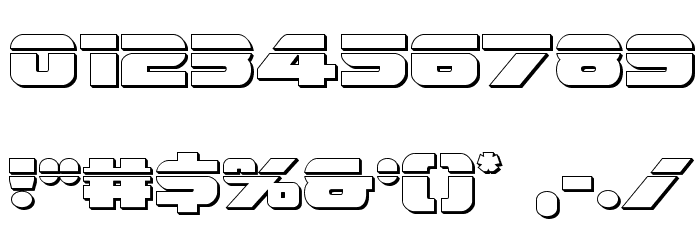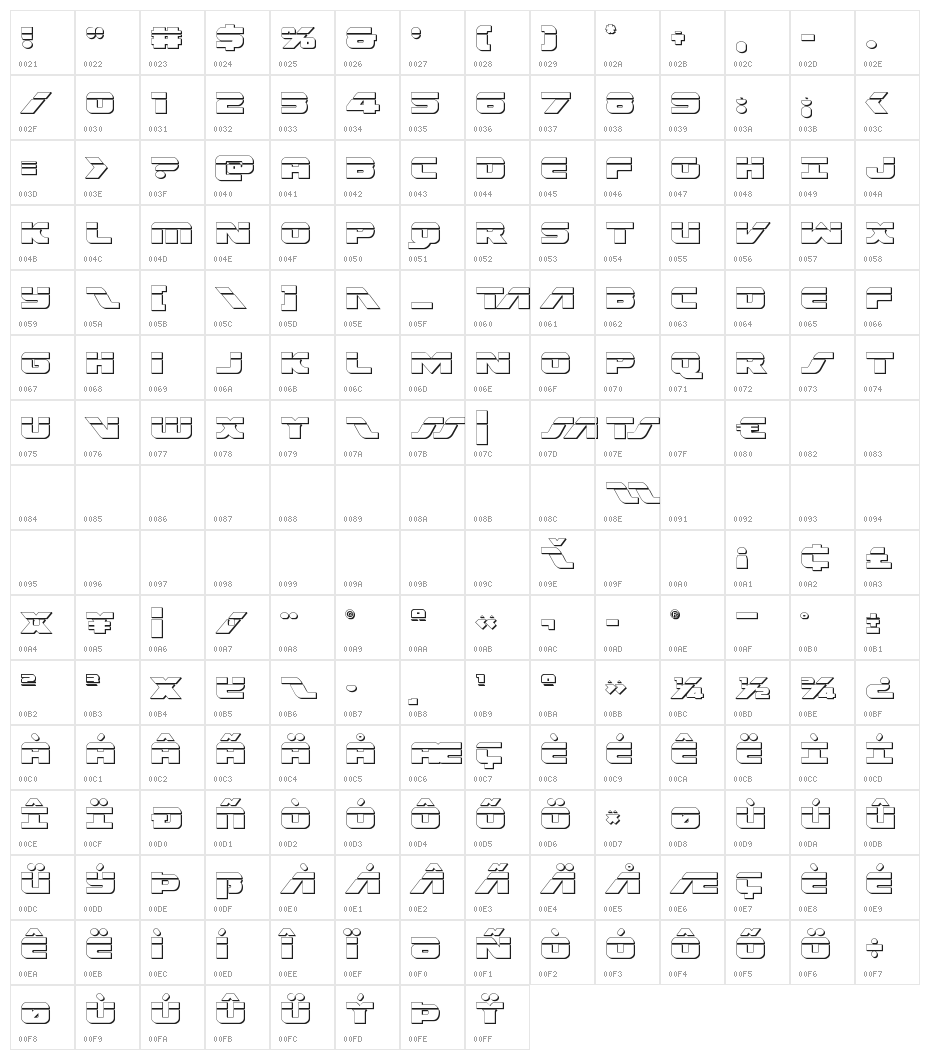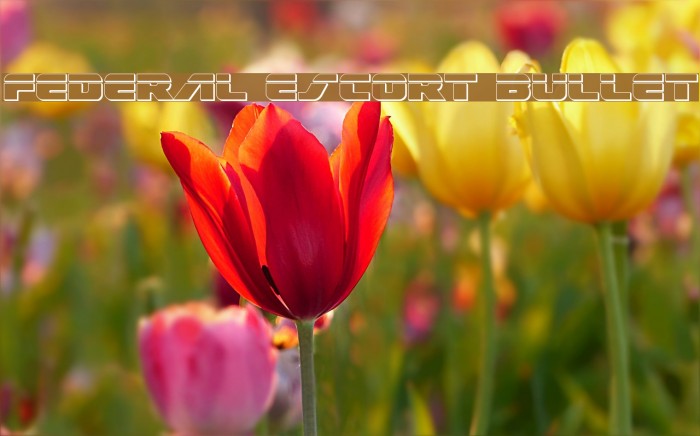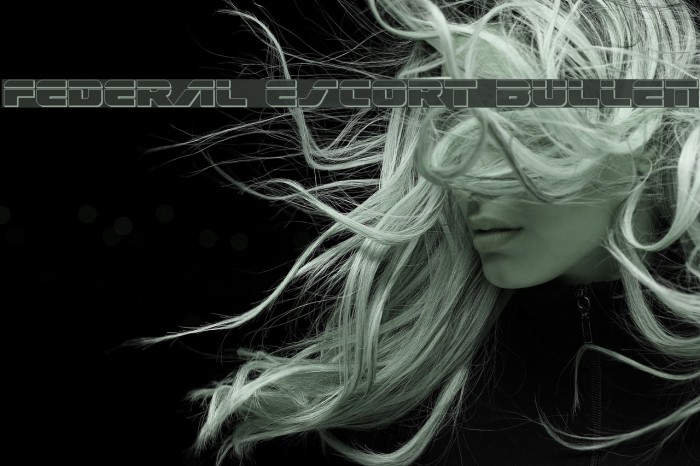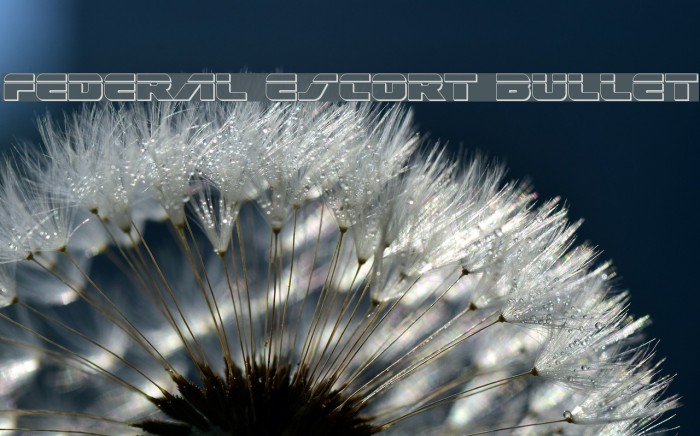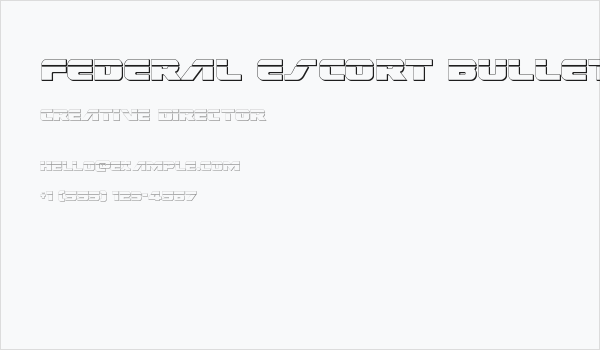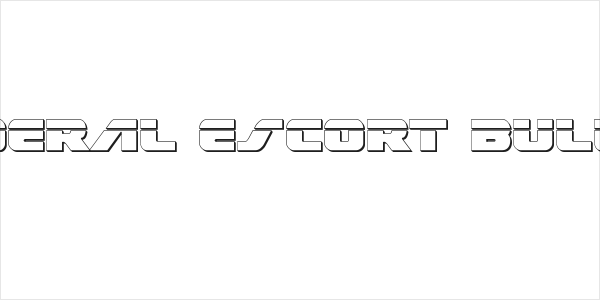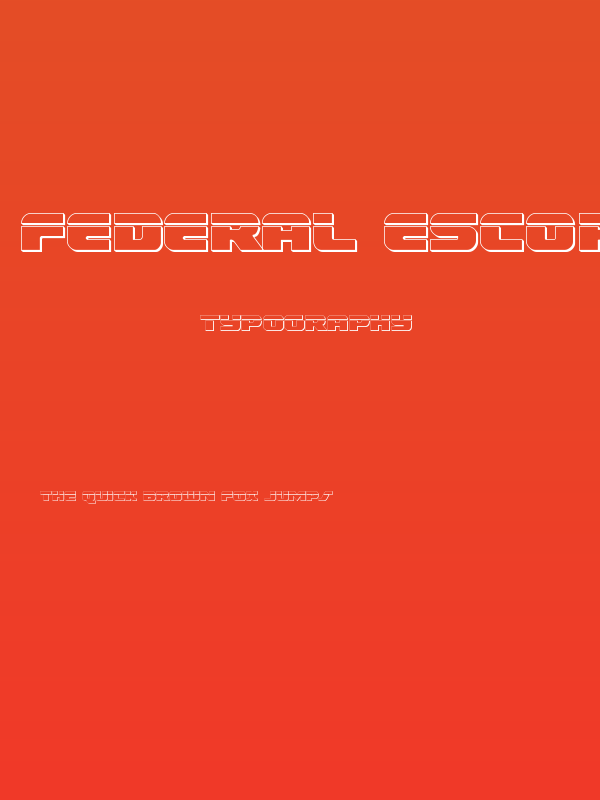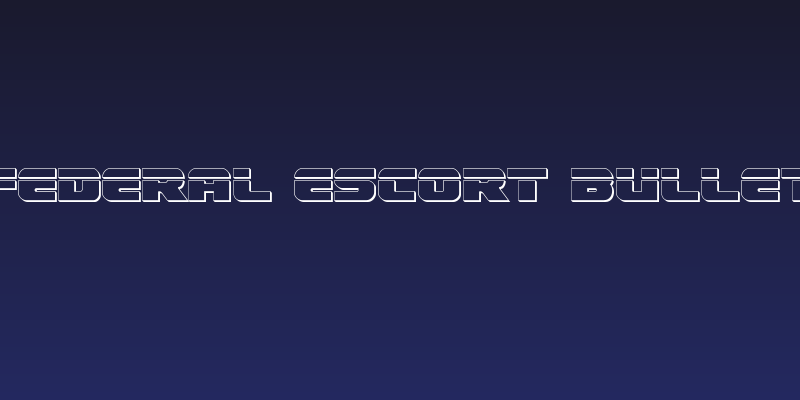
Federal Escort Bullet Font
Federal Escort Bullet Description
This font features a bold, futuristic design with a strong geometric influence. The characters are outlined, creating a hollow effect that adds depth and dimension. Each letter is constructed with sharp angles and straight lines, giving it a modern and edgy appearance. The uppercase and lowercase letters maintain a consistent style, while the numbers and special characters complement the overall aesthetic. The font's unique structure makes it stand out, ideal for projects that require a distinctive and eye-catching typeface.
| Proposed Projects | Ideal for sci-fi themed designs, video game titles, posters, and branding that requires a modern and bold statement. |